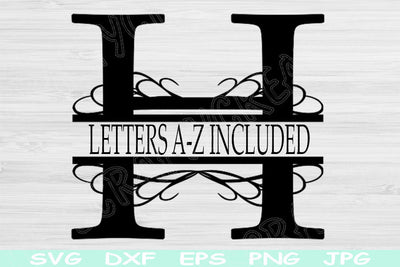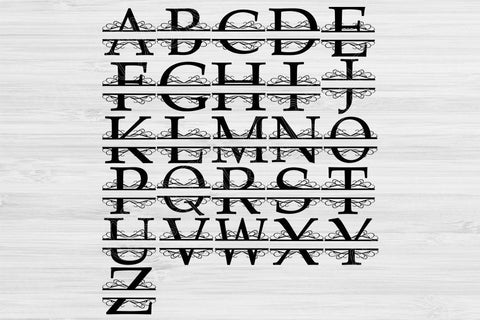
This split monogram font svg file that is 26 upper case letter svgs is the perfect split alphabet svg to customize gifts. It would look great on a wood sign, metal pail, or plate. This purchase will allow you to use vinyl, paper, or your other favorite medium.
This is the entire alphabet.
In pack are included 26 uppercase split monogram font svg letters: